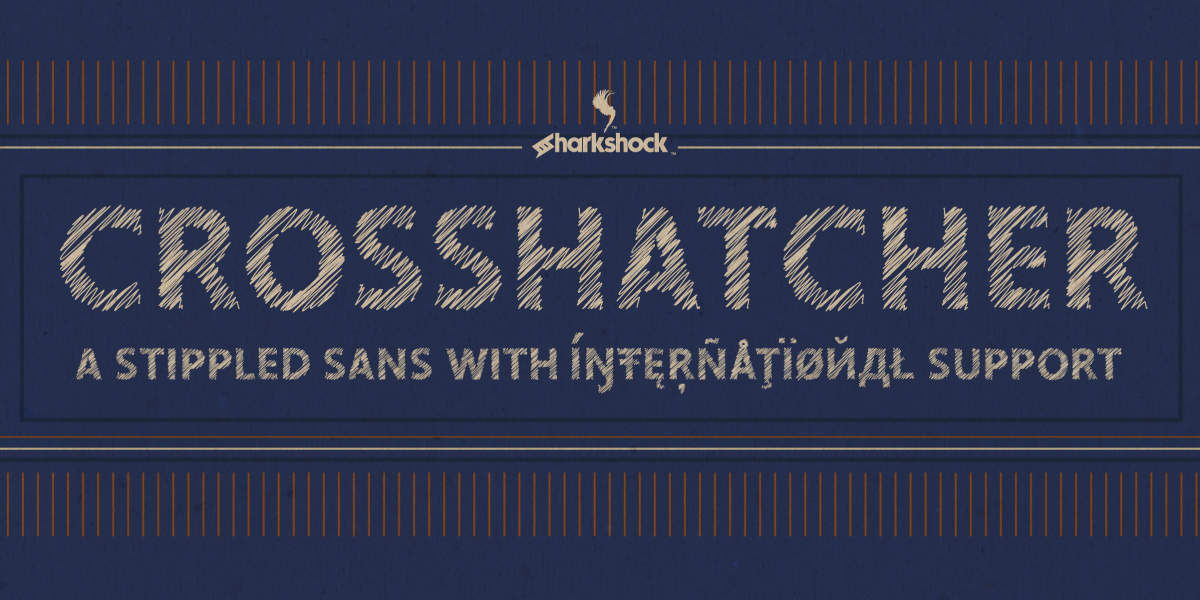
The Crosshatcher font is a stippled sans typeface characterized by its textured, decorative appearance. This effect makes the font look like it was drawn using a quick, handwritten or sketched technique. The typeface is presented in an initial-caps style, meaning all characters are uppercase.
Crosshatcher